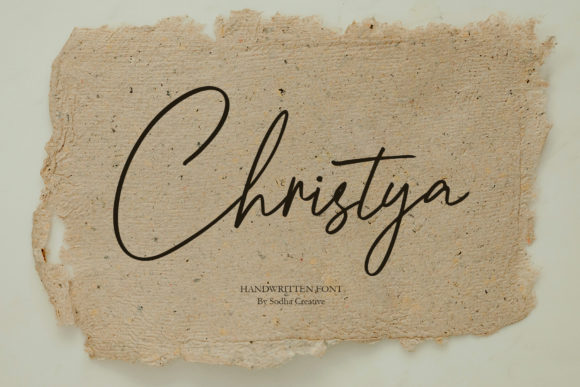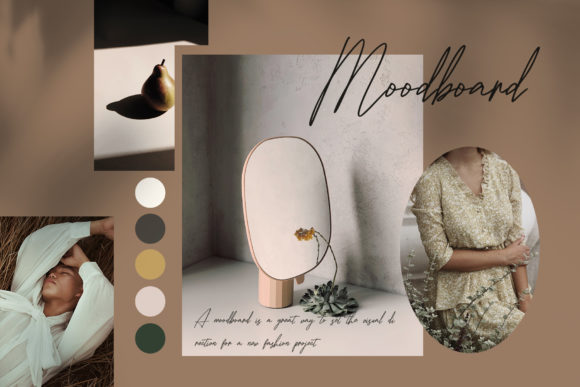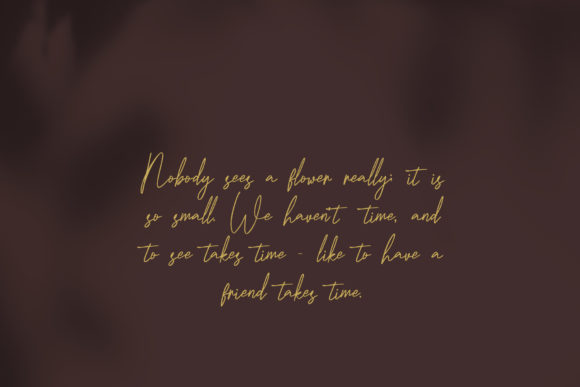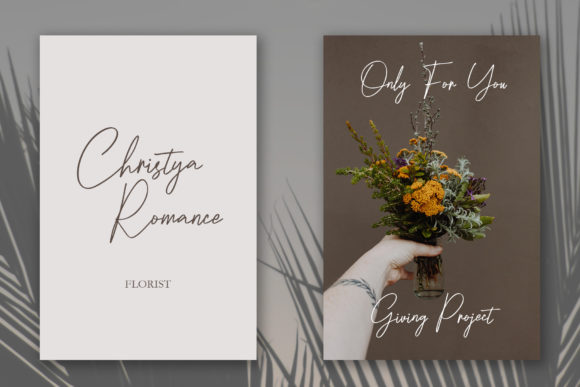
About Christya Font
Create gorgeous and timeless designs with Christya, an interesting and unique handwritten font.
Fall in love with its incredibly stylish look and use it for logos, quotes, invitations, business cards, power point presentations, and more!